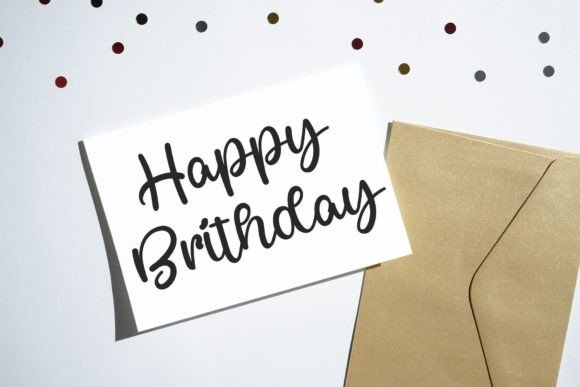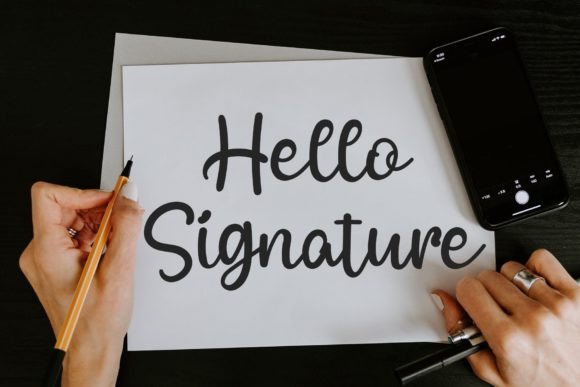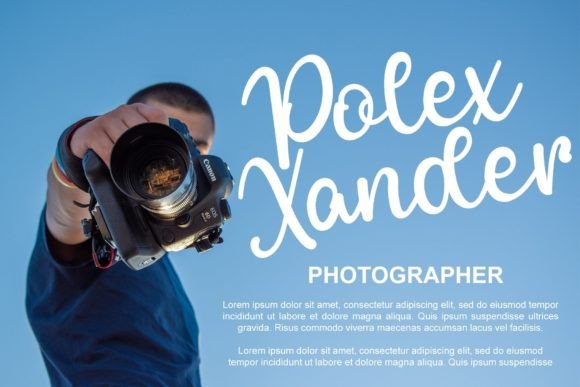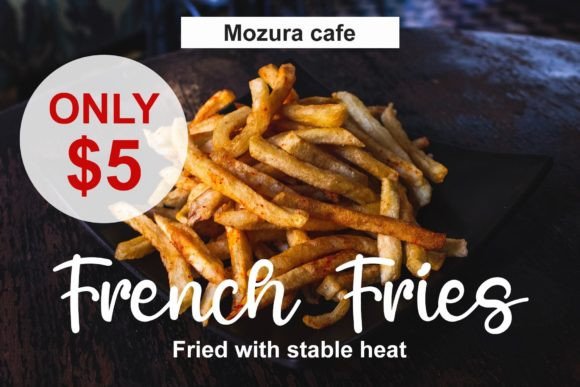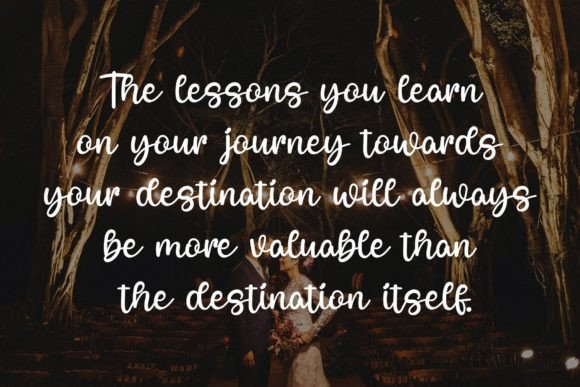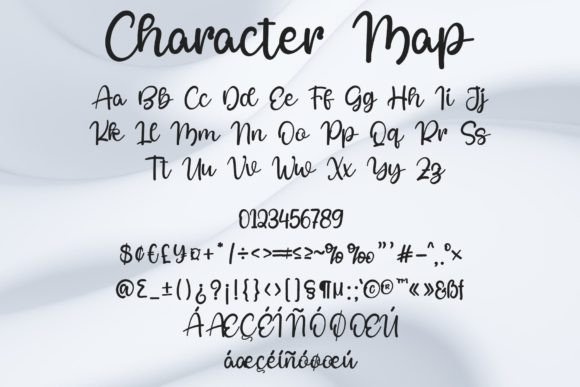
Introducing Become: The Modern Handwritten Font to Elevate Your Designs
In the world of design, fonts play a crucial role in conveying the message and aesthetic of a project. Among the myriad of fonts available, handwritten fonts have a special place in the hearts of designers and crafters alike. They add a personal touch, making designs feel more approachable and unique. Today, we’re excited to introduce “Become,” a modern and simple handwritten font that’s set to revolutionize your design endeavors.
What is Become Font?
Become is a meticulously crafted handwritten font, designed with the contemporary designer in mind. Its simplicity and elegance make it an ideal choice for a wide range of projects, from digital designs to print materials. Whether you’re working on wall displays, wedding invitations, social media posts, logos, advertisements, product packaging, product designs, labels, photography, watermarks, invitations, stationery, or any project that requires a handwritten touch, Become is your go-to font.
Key Features of Become Font
- Modern and Simple: Become boasts a modern aesthetic with a simple, clean design. This makes it incredibly versatile, allowing it to fit seamlessly into various design contexts.
- Handwritten Touch: The font’s handwritten nature adds a personal and unique touch to any design, setting it apart from more traditional or serif fonts.
- High Versatility: Its adaptability makes it perfect for use in a multitude of projects, ensuring that your designs always stand out.
- Elegant and Approachable: Become strikes the perfect balance between elegance and approachability, making it suitable for both formal and casual designs.
Why Choose Become Font?
With so many fonts available, why should Become be your top choice? Here are a few compelling reasons:
- Enhance Your Brand’s Personality: A unique font like Become can help define your brand’s personality, making it more memorable to your audience.
- Easy to Read: Despite its handwritten style, Become is remarkably legible, ensuring that your message is always communicated clearly.
- Time-Saving: With Become, you can achieve professional-looking results without spending hours on design. Its simplicity and elegance save you time, allowing you to focus on other aspects of your project.
How to Use Become Font Effectively
To make the most of Become, consider the following tips:
- Pair with Other Fonts: While Become is stunning on its own, it can also be paired with other fonts for added contrast and visual interest. Experiment with different combinations to find what works best for your project.
- Experiment with Sizes and Colors: Don’t be afraid to play around with different sizes and colors. Become’s simplicity makes it a great canvas for creative experimentation.
- Use in Digital and Print: Thanks to its clear and legible design, Become can be used effectively in both digital and print projects. This versatility makes it a valuable addition to any designer’s toolkit.
Become is more than just a font; it’s a design solution that can elevate your projects to new heights. Its modern simplicity, elegance, and versatility make it an indispensable tool for designers and crafters looking to add a personal touch to their work. Whether you’re creating wedding invitations, social media posts, product packaging, or any other design project, Become is sure to make your designs extraordinary. So why wait? Embrace the power of Become and transform your designs today.